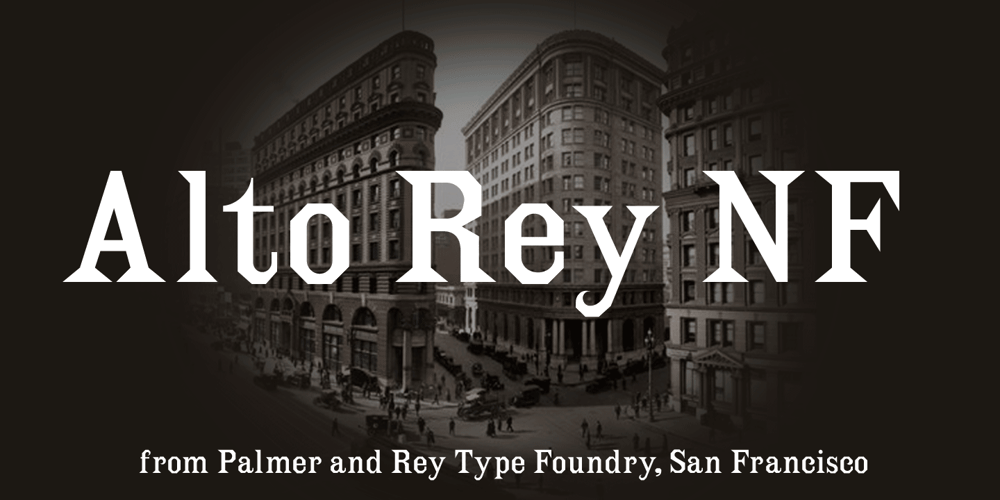
Alto Rey NF
Alto Rey NF Font Family was designed by published by Nick’s Fonts. Alto Rey NF contains 1 styles and family package options. Originally issued by the Palmer and Rey Type Foundry of San Francisco in 1884, this typeface bore the name Octagon Condensed, and is as fresh today as it was way back when. Both versions of this font support the Latin 1252, Central European 1250, Turkish 1254 and Baltic 1257 codepages.